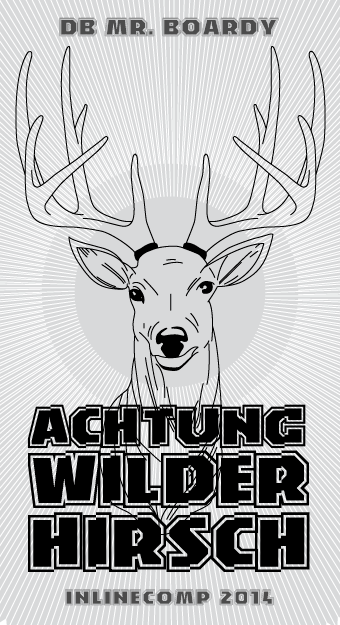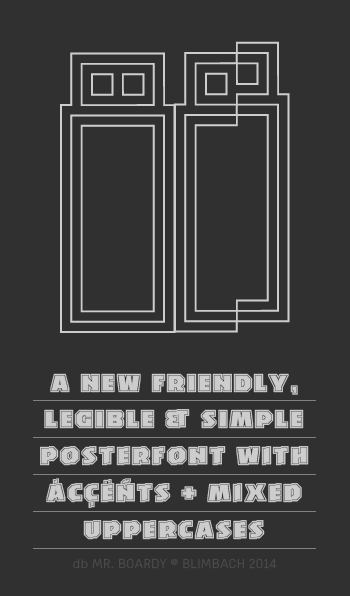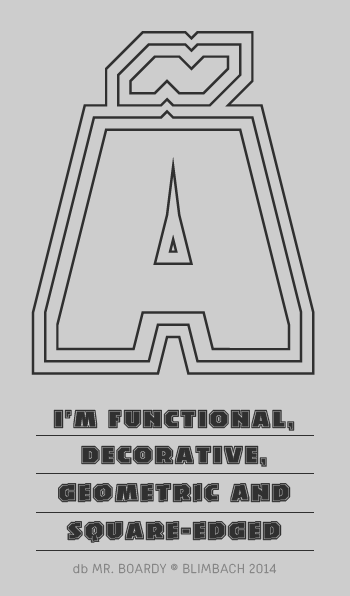
WOW
Einfach geil
Two great fonts in one.
The offsetting on each character gives a nice taste of Awesomeness in each glyph. c=
Beautiful samples.
Nice! There are a couple of stray bricks on your underscore, though. :)
Wow! Another first prize! You're the best!
You have a great eye for letters. I'm in awe.
A lot of work
great font love it
Congratulations! FontStruct Staff have deemed your FontStruction worthy of special mention. “db Mr. Boardy” is now a Top Pick.
A chunky font with a ''jump" ;) Very legible, would be great in book titles or advertising sports equipment. Congratulations on the TP.